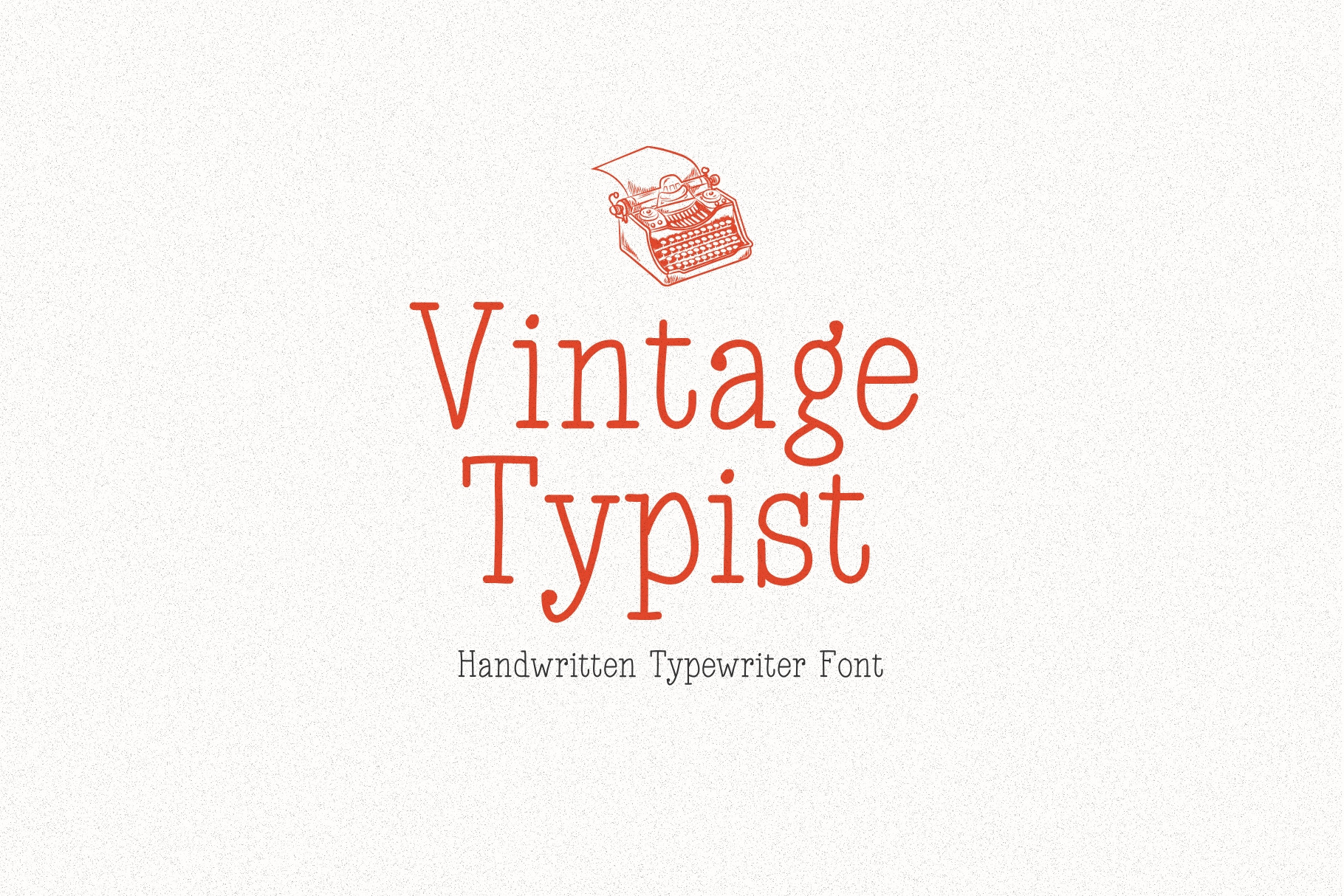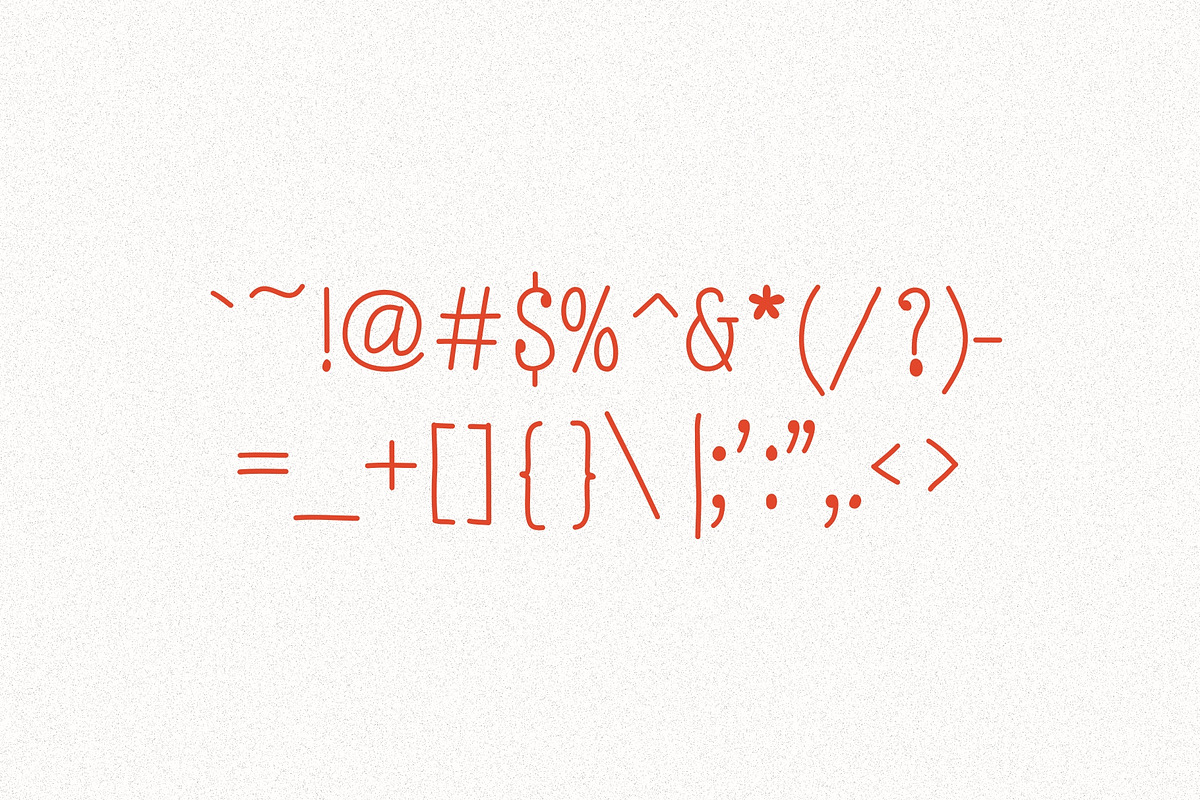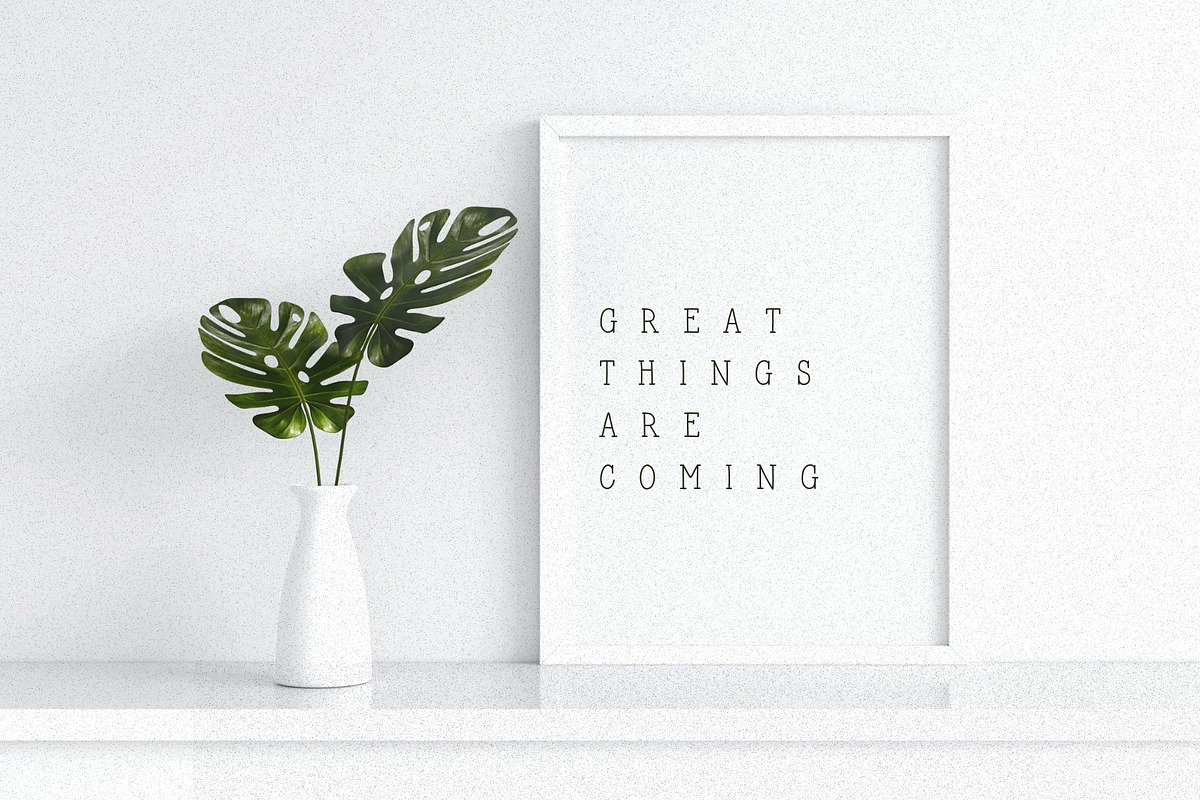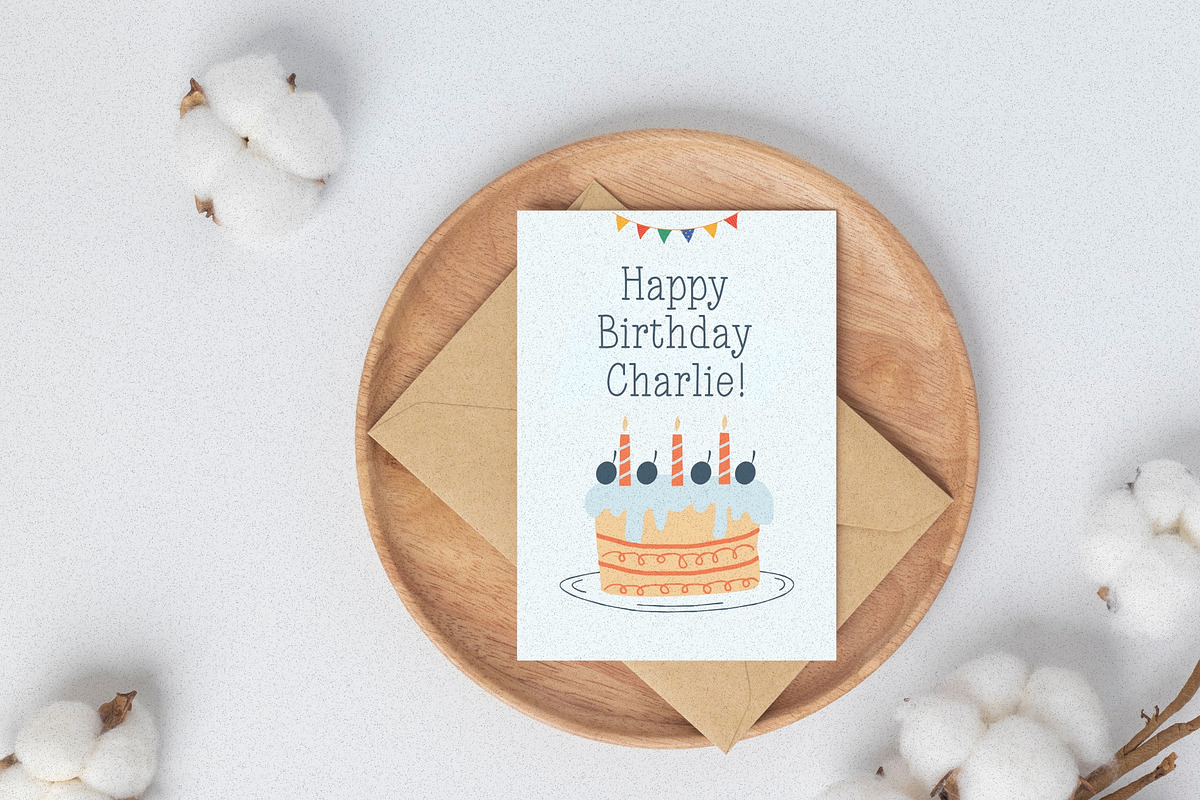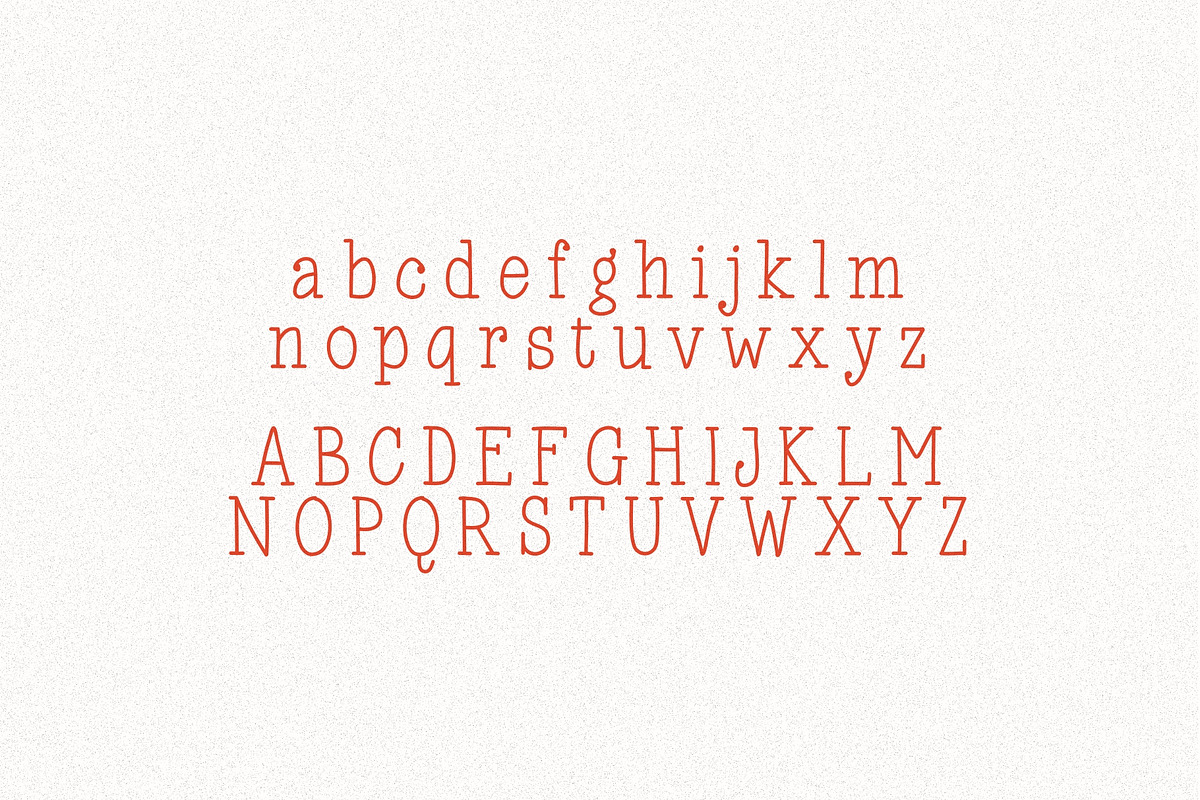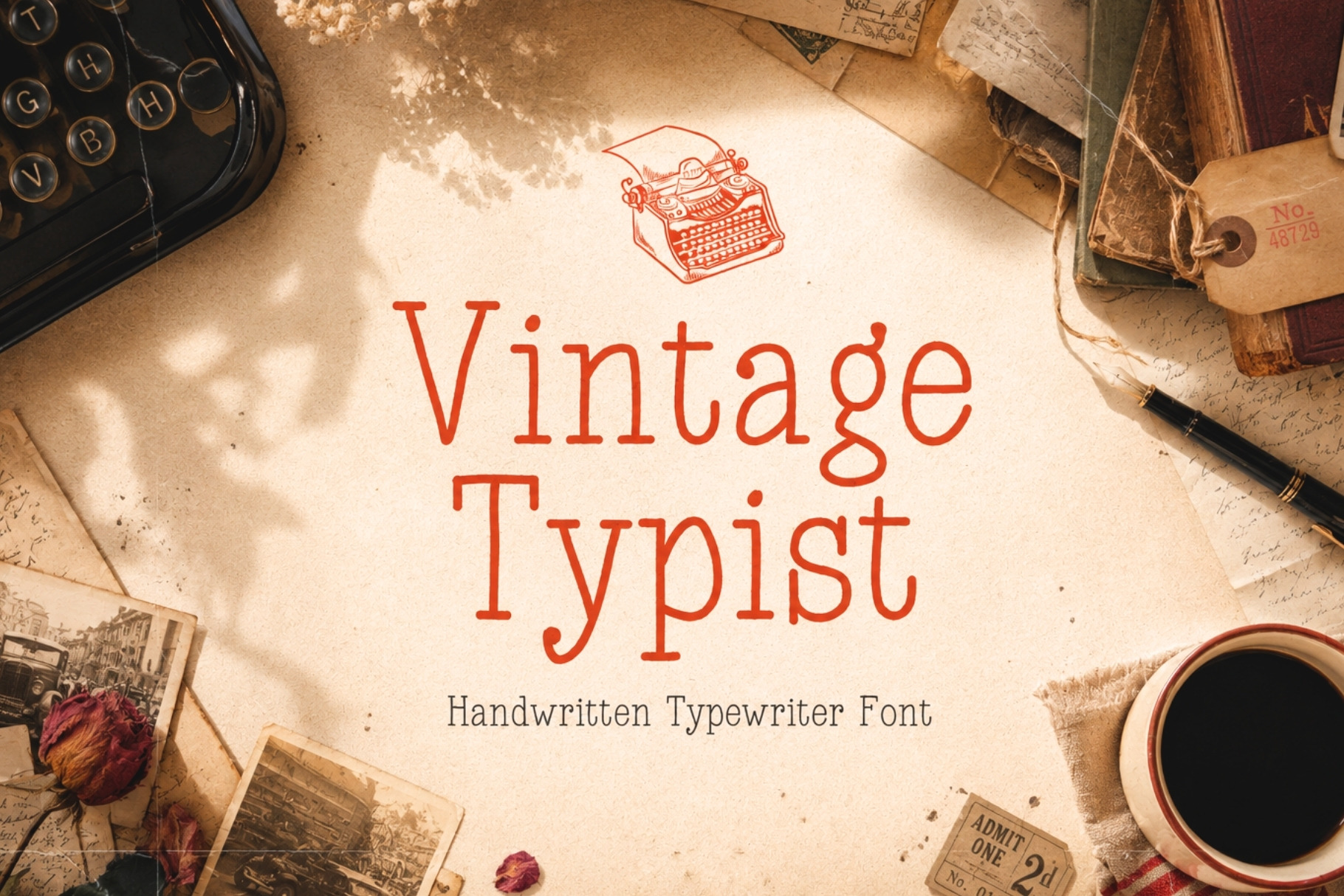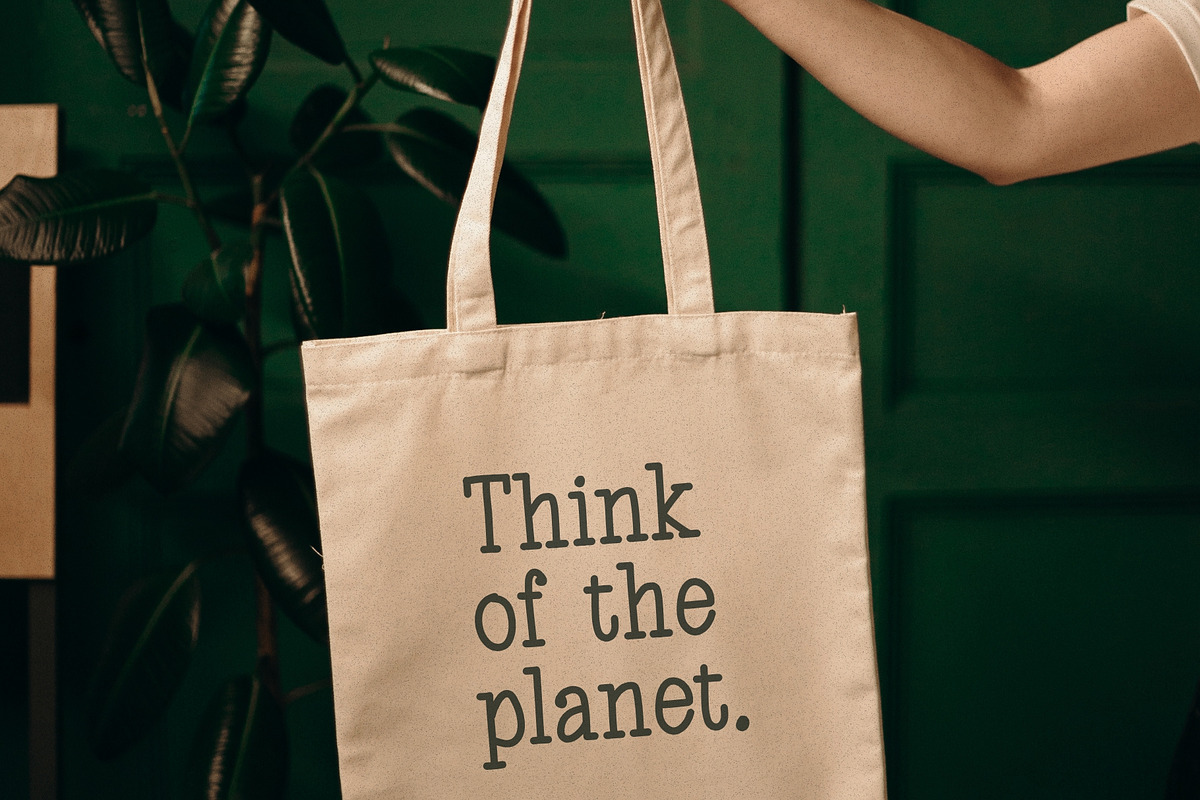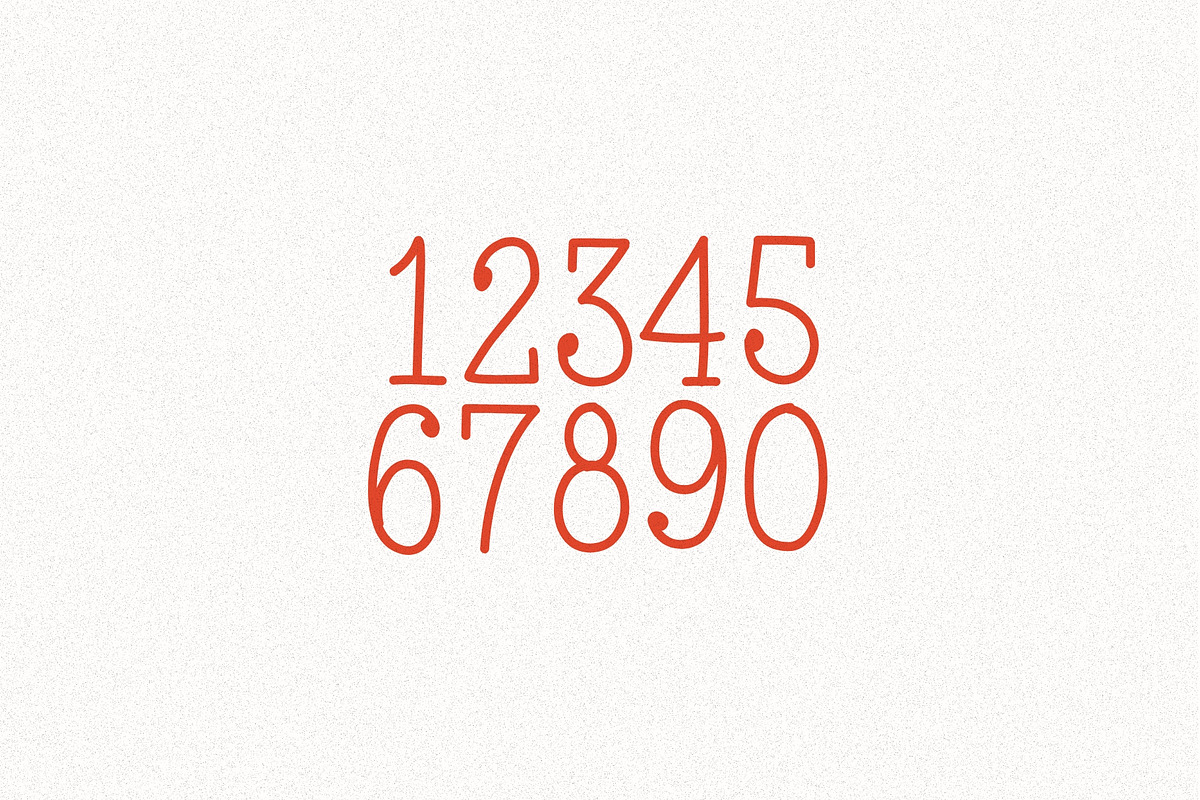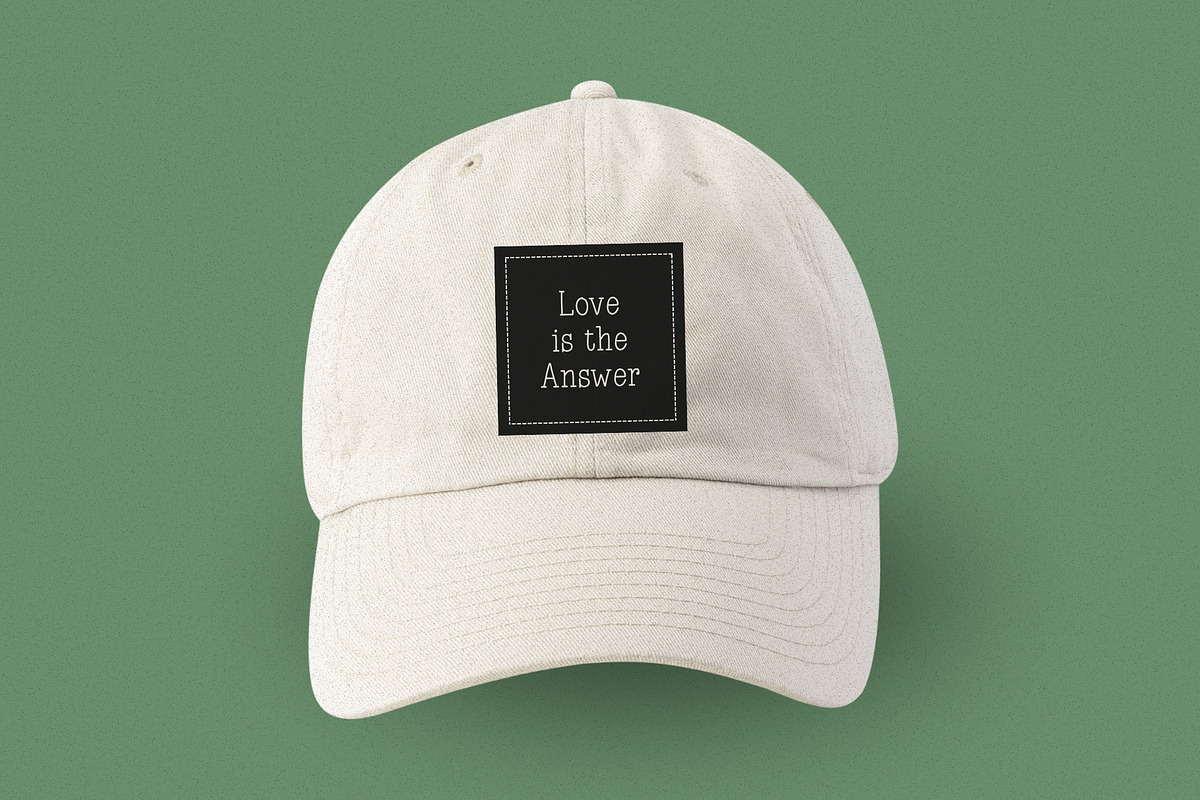
Vintage Typist - Typewriter Font
Step back in time with Vintage Typist, a meticulously crafted handmade typewriter font that exudes nostalgia and authenticity. Every letter carries the subtle imperfections of a well-loved typewriter, bringing warmth, character, and a touch of old-world charm to your designs.
Versatile and effortlessly stylish, Vintage Typist is perfect for everything from retro branding to heartfelt letters, editorial layouts, and DIY projects. Whether you're crafting vintage-inspired posters, rustic wedding invitations, or eye-catching social media graphics, this font delivers an organic, classic typewriting feel with a modern twist.
Bring the past to life in your designs—Vintage Typist is the perfect blend of history, personality, and versatility.